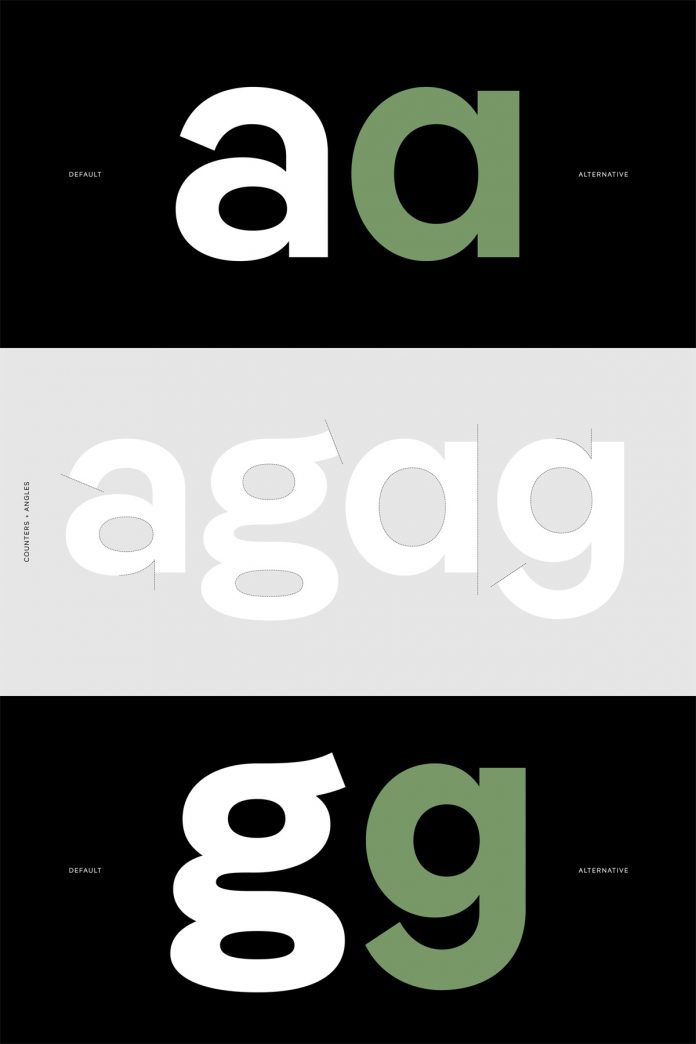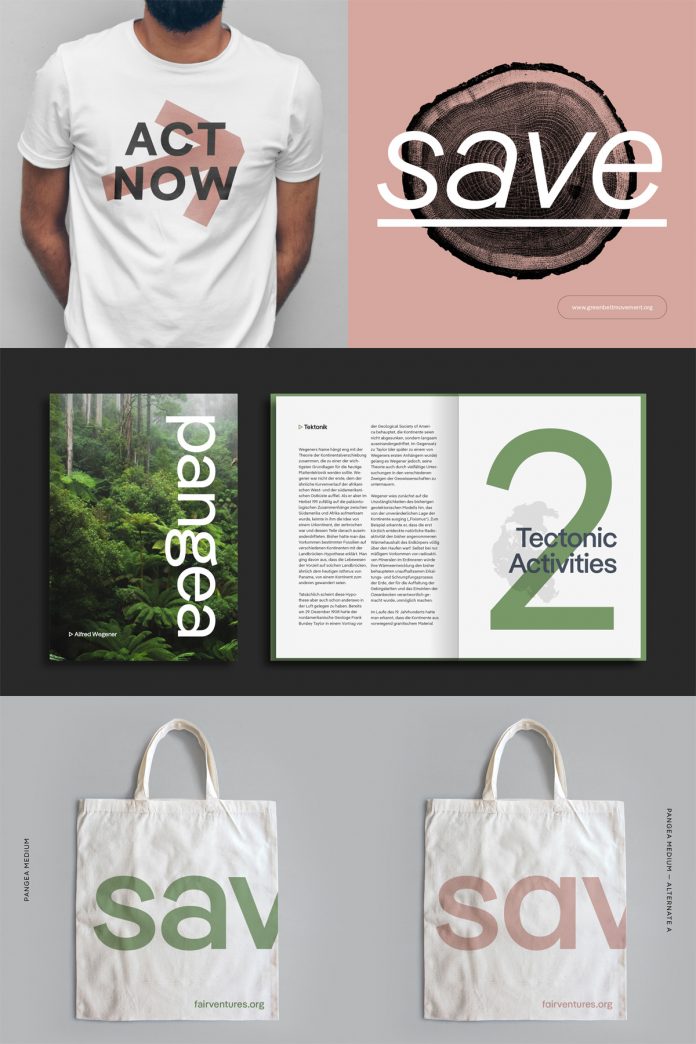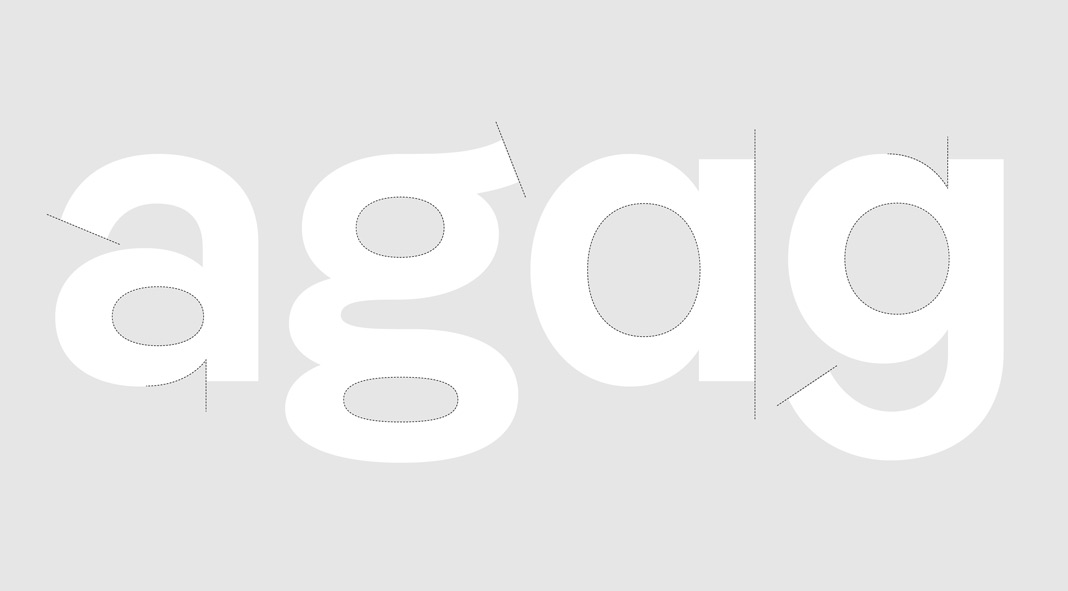
Pangea, a sans-serif font family that tries to make the world a better place.
Designed by type designer Christoph Koeberlin, Pangea is a sans-serif font family that offers a wide range of uses. Together with its companion Pangea Text, it is available as a massive superfamily at Fontwerk.
So how exactly does this font try to make the world a better place—you might ask? 25% of the designer’s royalties are donated to the preservation of the rainforest and large-scale reforestation projects. You can purchase Pangea individually or in the superfamily package. This versatile but accurate typeface works great in a wide range of applications including advertising, branding, packaging, editorials, logos, posters, billboards, or responsive website designs. The possibilities seem endless.